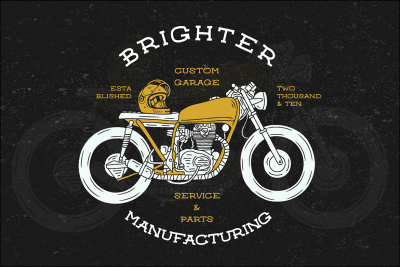
The Retro Font RETRO BADGER is a bold typeface inspired by vintage design. Its blocky serifs and clean lines beautifully capture the charm of classic typography. Moreover, the distressed texture adds a rugged and authentic feel, evoking memories of old signage and retro advertisements. This combination of strength and elegance ensures that RETRO BADGER remains versatile for various design styles.
In addition, the font is not only visually striking but also highly functional. Its clear and well-defined characters guarantee excellent readability, whether in bold headlines or smaller text. Therefore, it is perfect for branding, logos, posters, and social media graphics. By blending vintage charm with a modern touch, RETRO BADGER fits seamlessly into both retro-themed and contemporary projects.
What sets this font apart is its ability to evoke nostalgia while still feeling fresh. Whether used in digital designs or printed materials, it leaves a lasting impression. Its timeless appeal ensures it remains relevant across different projects and industries.
Retro Font RETRO BADGER Perfect for Designers, Creatives, and Small Business Owners
RETRO BADGER is ideal for creatives aiming to add a vintage vibe to their work. For graphic designers, it offers authenticity and versatility, especially for retro-themed projects. Furthermore, it is particularly suitable for branding and packaging in industries such as craft beverages, handmade goods, and artisanal products.
Additionally, the distressed texture gives the font personality, making it perfect for businesses emphasizing heritage and craftsmanship. Event planners and marketers can also benefit by using it for promotional materials for themed events like weddings, festivals, or retro parties.
Likewise, social media influencers can rely on RETRO BADGER to add a nostalgic touch to posts, ensuring their content stands out. Similarly, small businesses in hospitality or retail can use it for signage, menus, or product labels.
Finally, this font works exceptionally well for print materials, including posters, brochures, and invitations. With its timeless appeal, rugged texture, and bold design, RETRO BADGER is more than just a fontโitโs a creative tool that helps you make bold and nostalgic statements.